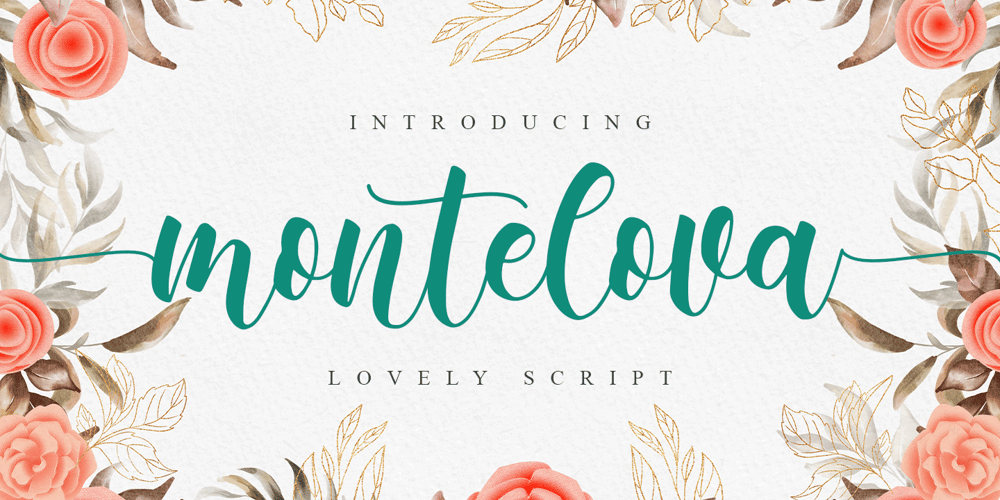
Montelova
Montelova font
Montelova Font Family was designed by Abdul Malik Wisnu and published by Almarkha Type. Montelova contains 1 styles and family package options. Montelova font with a Lovely Script perfect for any creative design. This handmade font will make your design has a beautiful natural touch for each details. It is perfect for any design project as Invitation,logo, book cover, craft or any design purposes.This font is PUA encoded which means you can access all of the magical glyphs and swashes with ease! It also features a wealth of special features including alternate glyphs and ligatures.